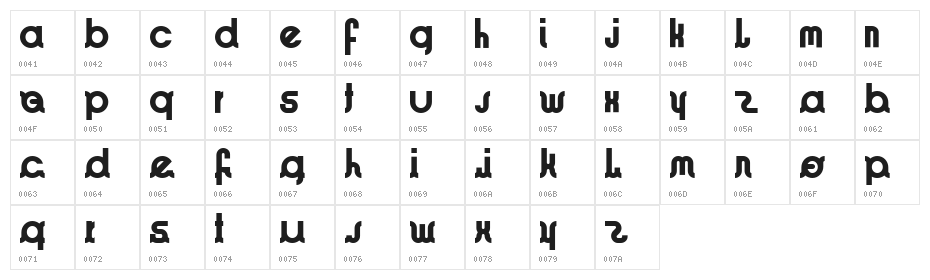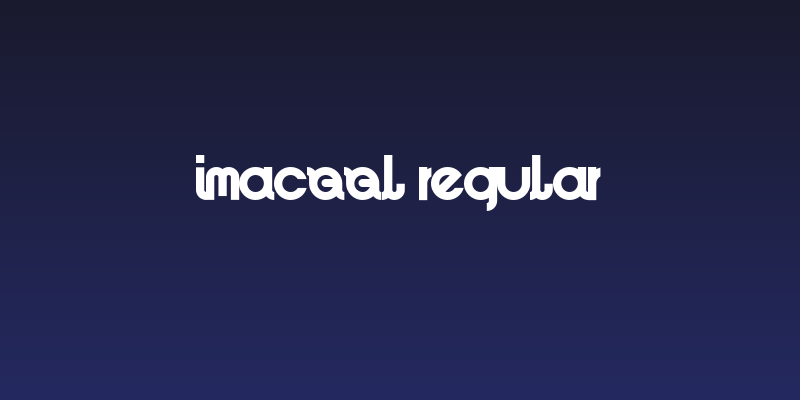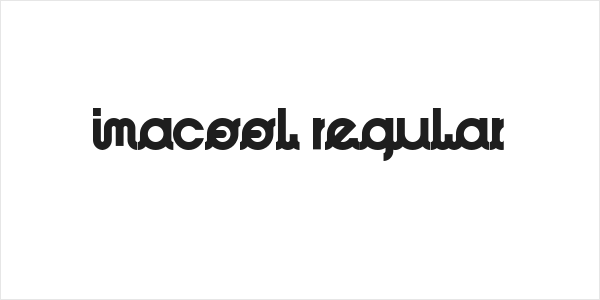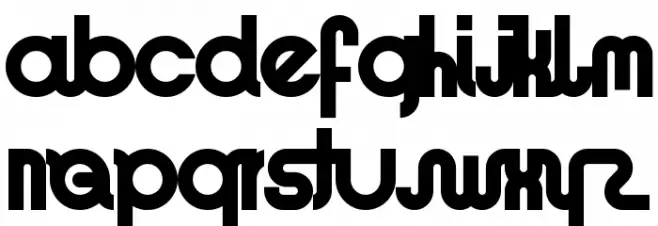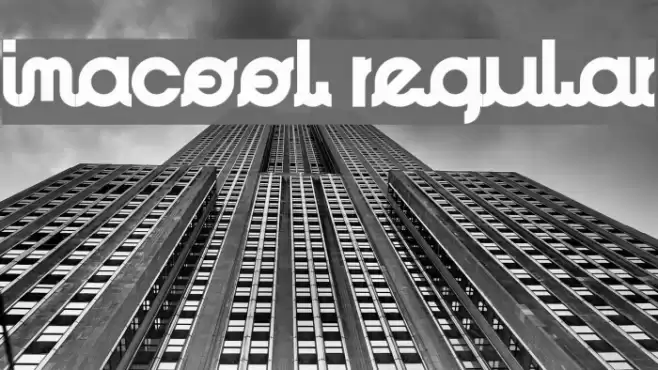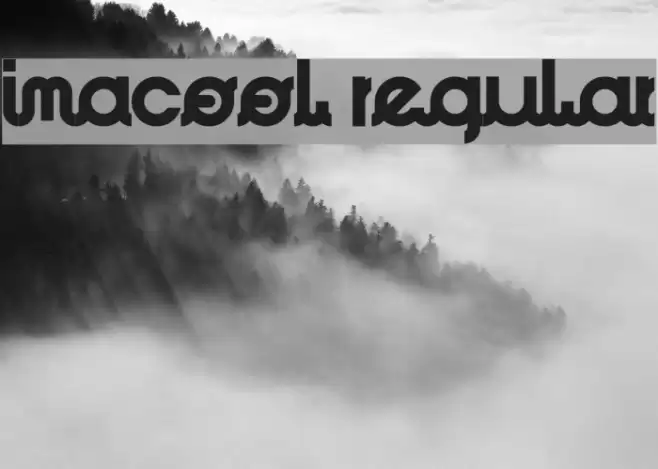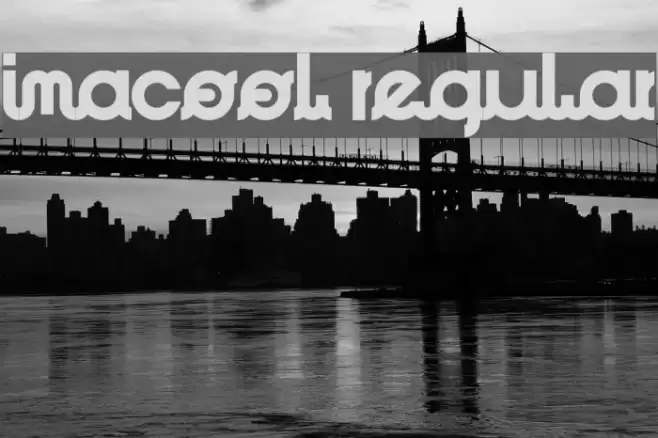
ImaCool Regular Font
ImaCool Regular Description
This font features a bold and modern design with a unique geometric style. The characters are constructed with thick, uniform strokes that create a strong visual impact. The rounded edges and consistent line weight give it a cohesive and contemporary appearance. The letters are tightly spaced, enhancing the compact and solid look of the typeface. Its distinctiveness lies in the creative use of negative space, particularly in characters like 'a', 'e', and 'g', which adds an artistic flair. This font is ideal for projects that require a bold statement and a modern aesthetic.
| Proposed Projects | Ideal for branding, logos, headlines, and posters where a strong visual impact is desired. |